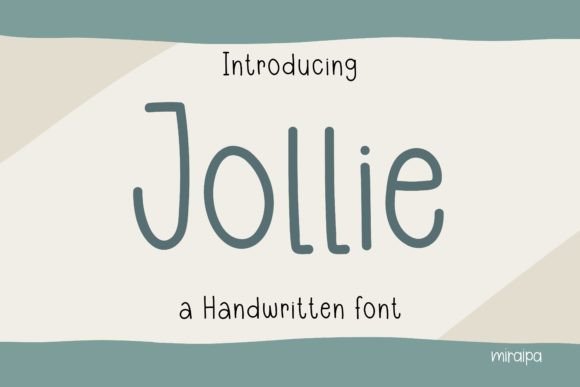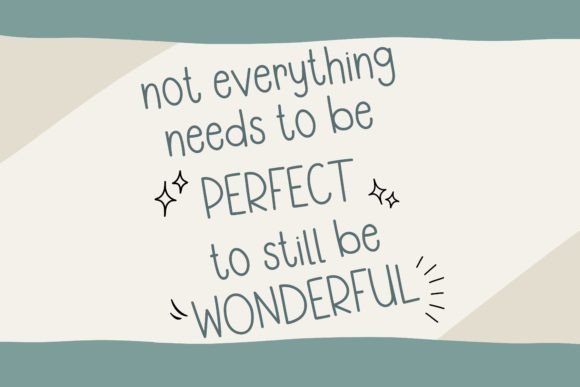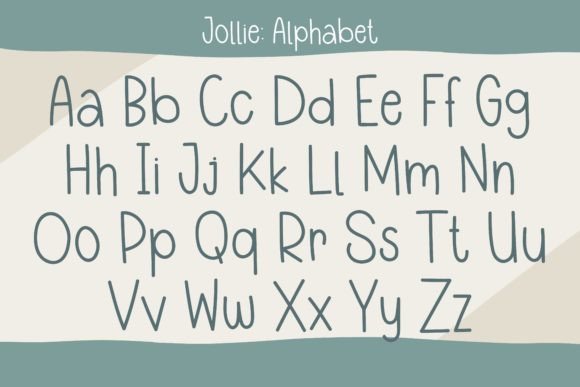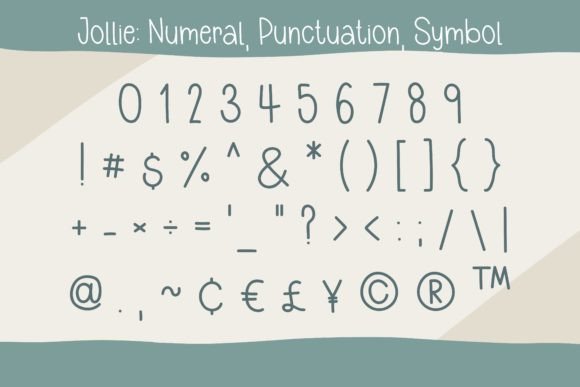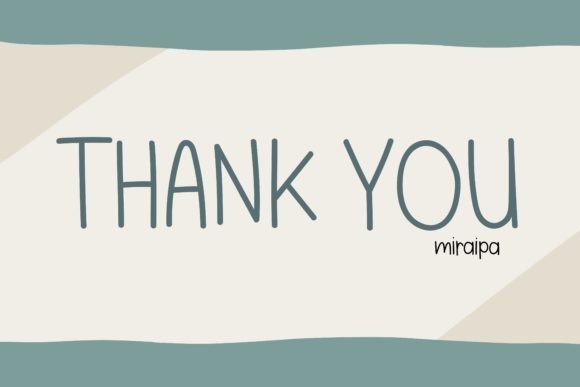
Jollie Font
About Jollie Font
Introducing Jollie, a delightful handwritten font meticulously crafted in a friendly and lovely style. This font is not just a typeface; it’s an invitation to infuse warmth and charm into your creative projects. Jollie is perfect for your daily diary entries, planners, and journals, adding a touch of personality to your everyday writing. Beyond personal use, Jollie shines in a myriad of projects, from back-to-school designs to weddings, parties, invitations, festivals, posters, blogs, clothing, child-related designs, greeting cards, social media posts, and anything that calls for a friendly and approachable touch.
Jollie’s handwritten charm exudes a unique character, making it an excellent choice for projects that require a personal and friendly vibe. The friendly strokes and lovely aesthetics make it a font that goes beyond mere letters; it’s an expressive tool for infusing your creations with warmth and personality.
For your daily diary planner and journal, Jollie becomes a companion that transforms mundane entries into moments of creativity. The font’s friendly style adds a personal touch to your reflections and plans, making your writing experience not only functional but also delightful.
In back-to-school designs, Jollie is the perfect choice to infuse a sense of joy and friendliness. Whether you’re creating posters, blog posts, or crafting materials for educational purposes, the font’s playful demeanor resonates with students of all ages.
For weddings and parties, Jollie adds a touch of whimsy to invitations and decorations. Its handwritten style conveys a sense of intimacy and celebration, making it the perfect choice for capturing the joy of special occasions.
In child-related designs, Jollie becomes a favorite for clothing, greeting cards, and social media posts. Its friendly and approachable appearance resonates with a youthful audience, bringing a sense of playfulness to every design.
Jollie is not just a font; it’s an essential addition to your creative toolbox. By adding Jollie to your font library, you’re bringing a burst of personality to your DIY projects. Let Jollie be the handwritten font that breathes life into your creations, making them as friendly and delightful as your imagination allows.